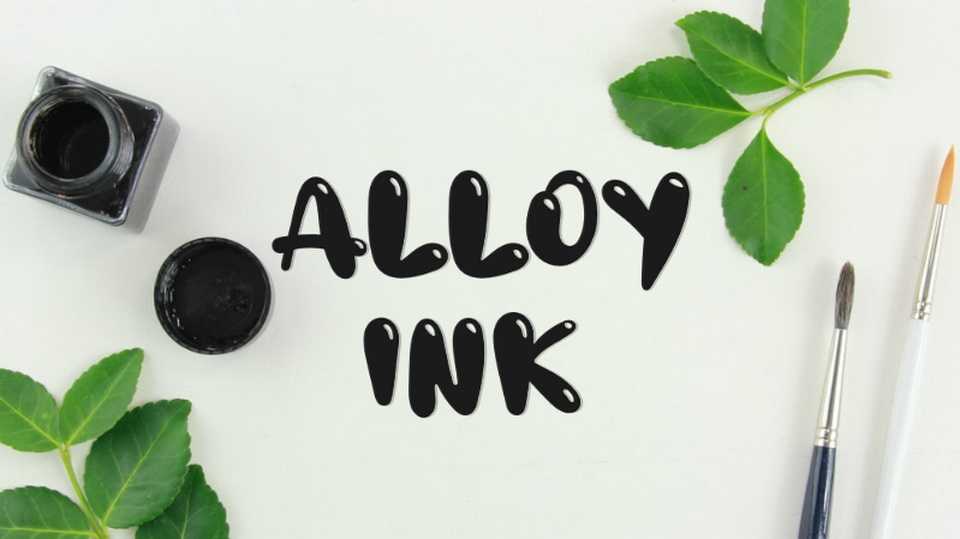
Download Alloy Ink font, a cute and fun hand painted typeface. Alloy Ink font is perfect for crafts, cards, posters, lettering, prints and other creative projects.
Designer: Wahyu Eka Prasetya